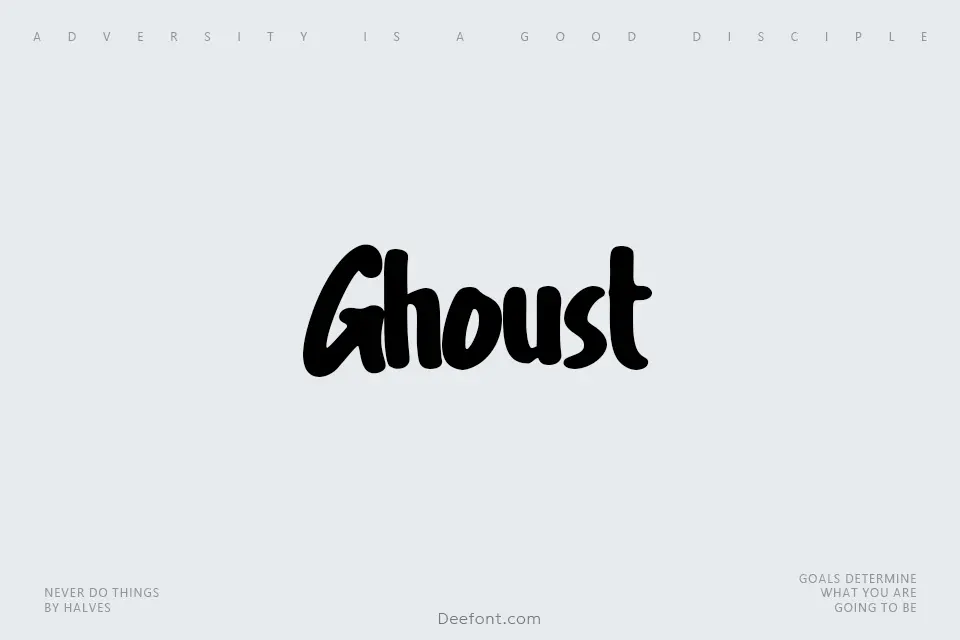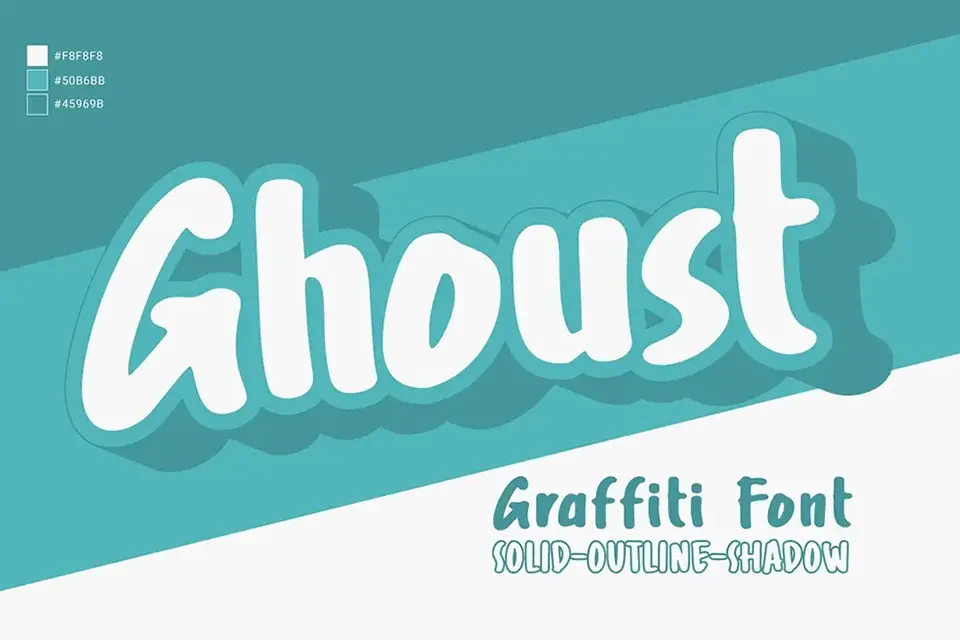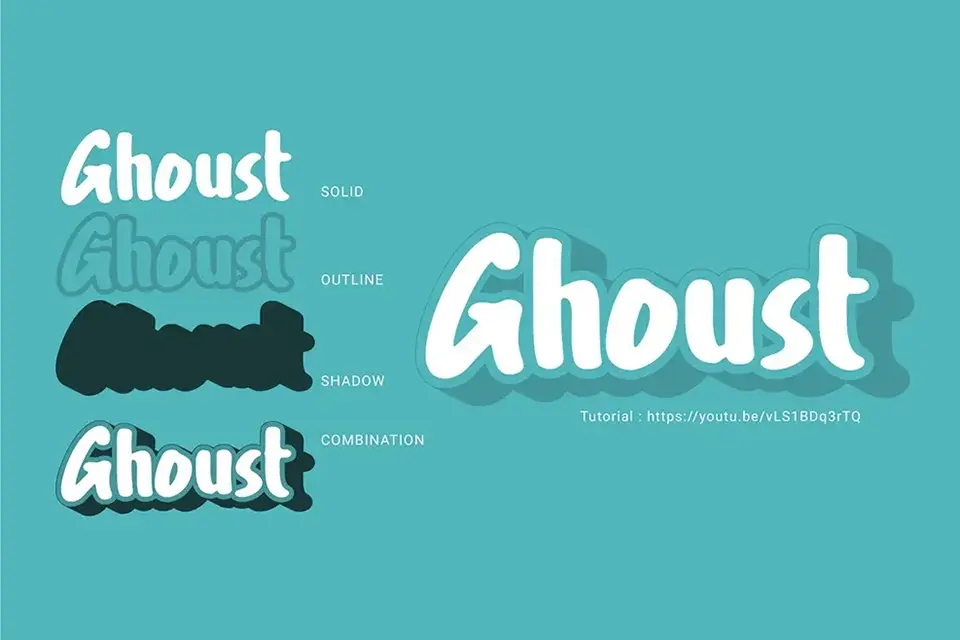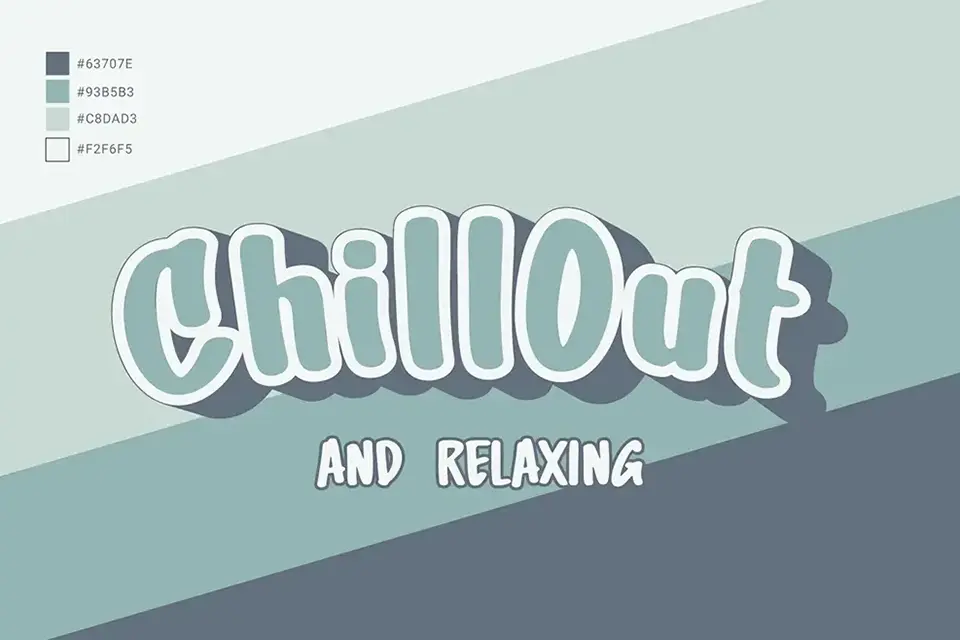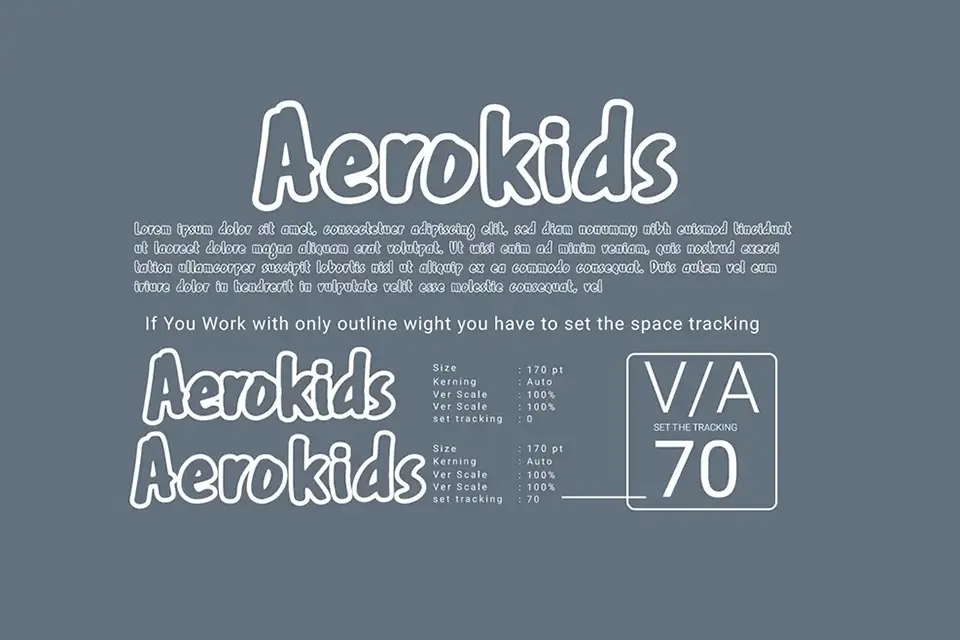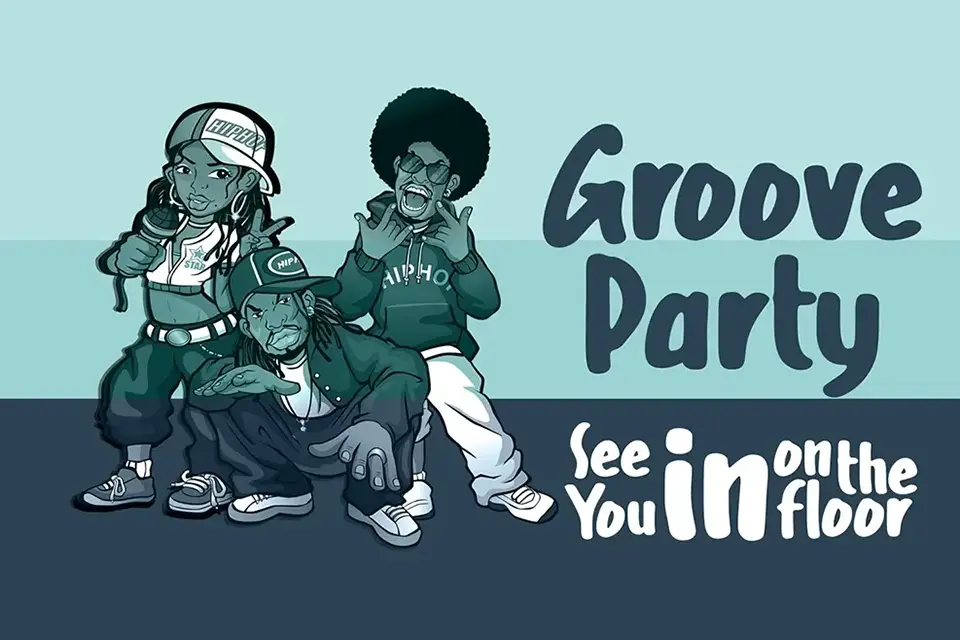
Ghoust Font
Ghoust is a bold and dynamic graffiti script font featuring three striking style variations—Solid, Outline, and Shadow versions. This expressive typeface combines street art aesthetics with refined letterforms, making it perfect for eye-catching headlines, branding, poster designs, and creative digital projects. With its energetic marker-pen aesthetic and contemporary flair, Ghoust delivers the perfect balance of urban attitude and professional polish for designers seeking distinctive visual impact.